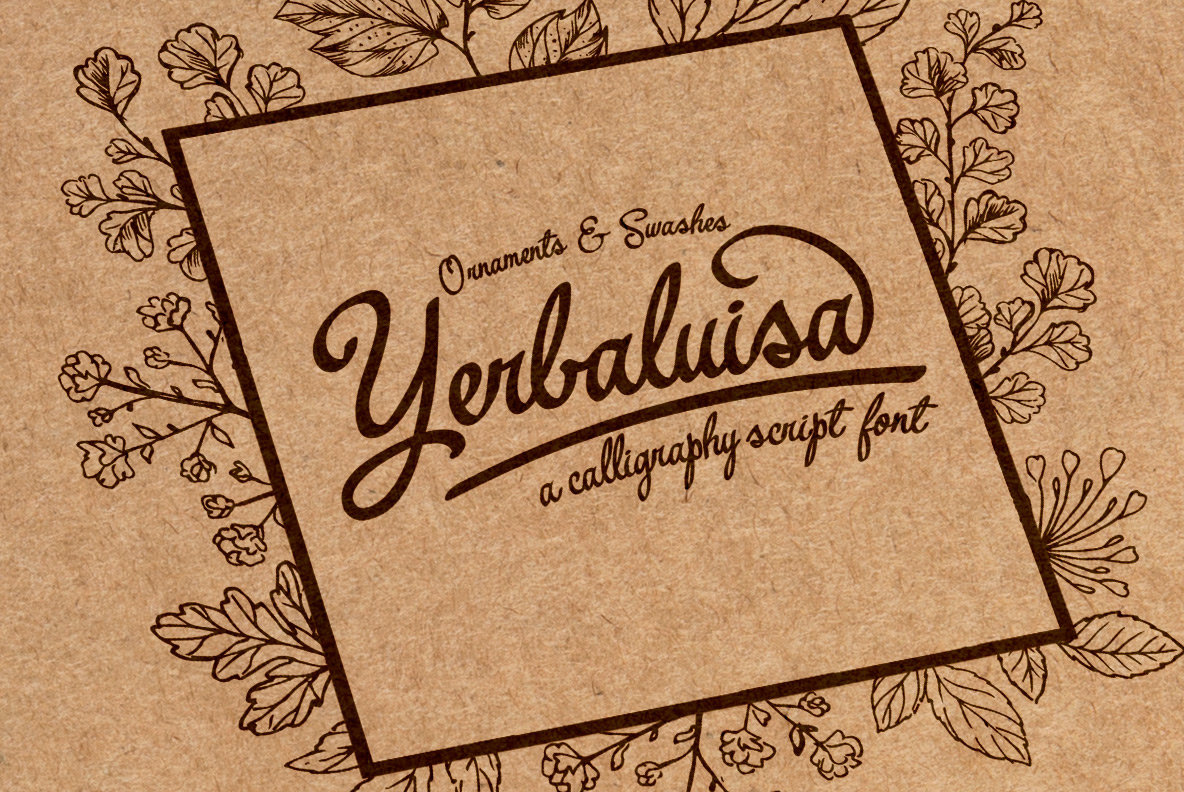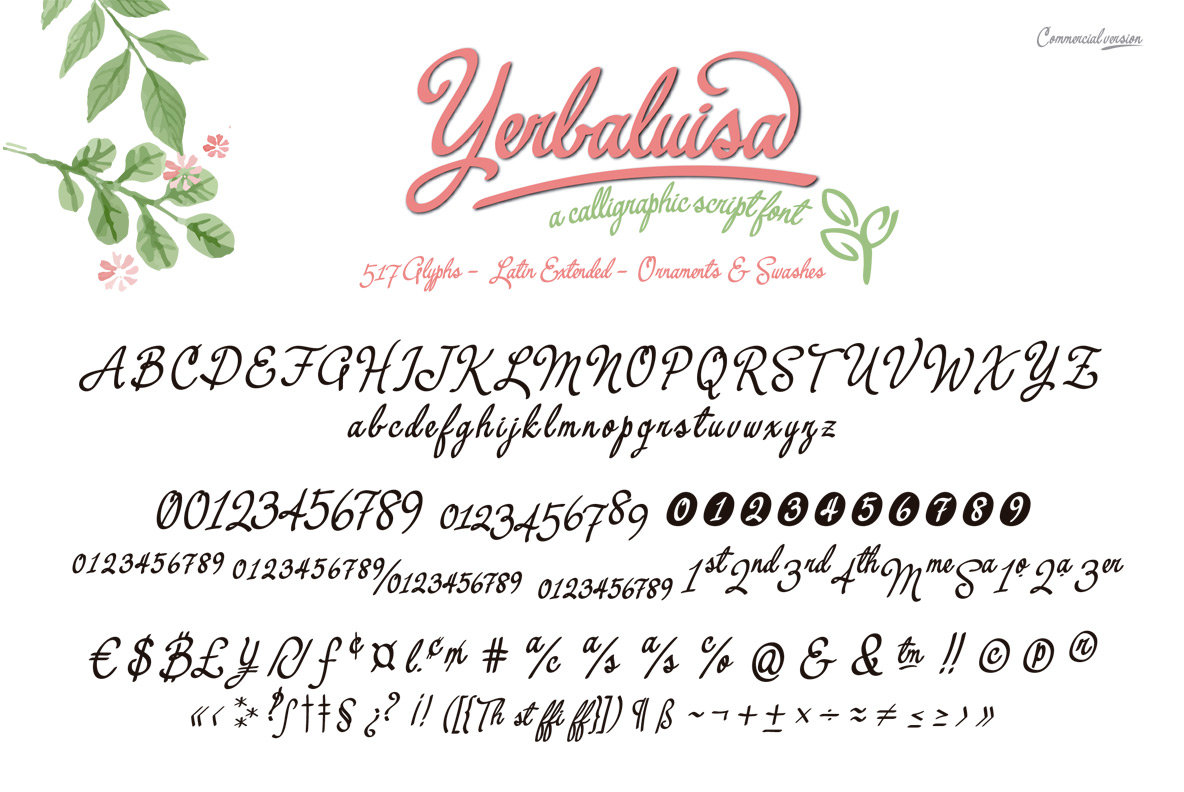
Yerbaluisa Font
Yerbaluisa
Yerbaluisa is a handwritten calligraphic typeface style with concatenated letters and several sets of ornaments and swashes terminals.
Numbers oldstyle, Bitcoin, Currencies, Ornaments, Denominators, Numerators, Slash zero, Inferiors, Superiors, Dynamic fractions, Ordinals, Annotation forms.